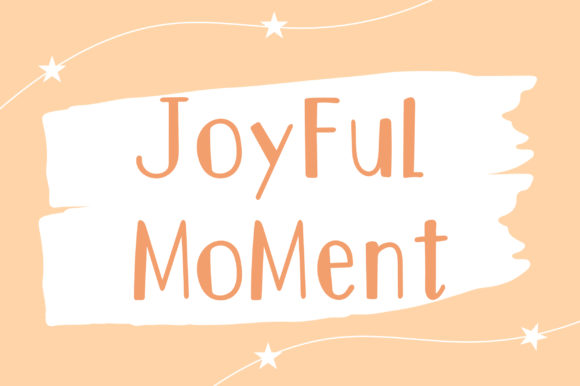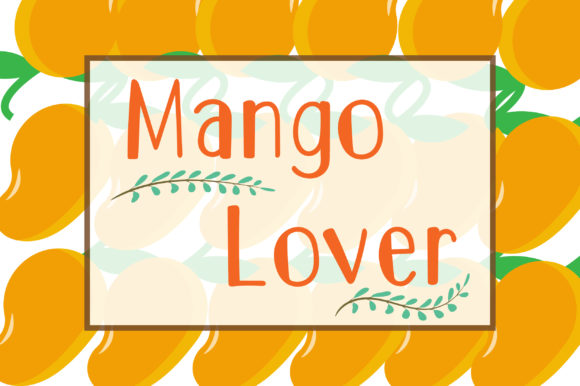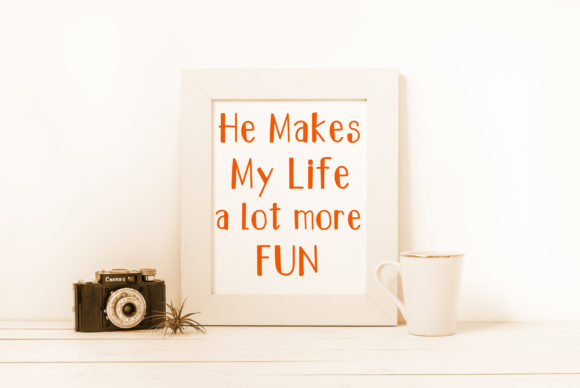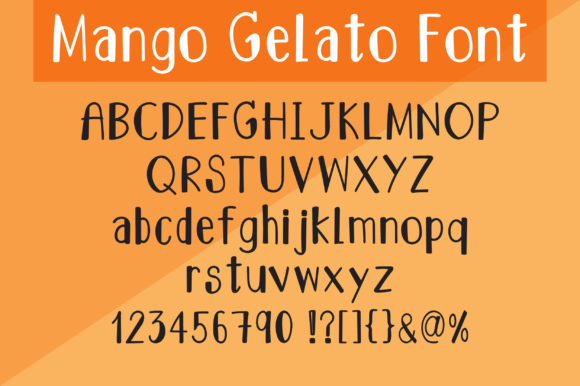
Mango Gelato Font
About Mango Gelato Font
Mango Gelato is a cute handwritten font with a cheerful feel. Use it for logos, quotes, blogs, crafting projects, invitation cards, social media posts and more!